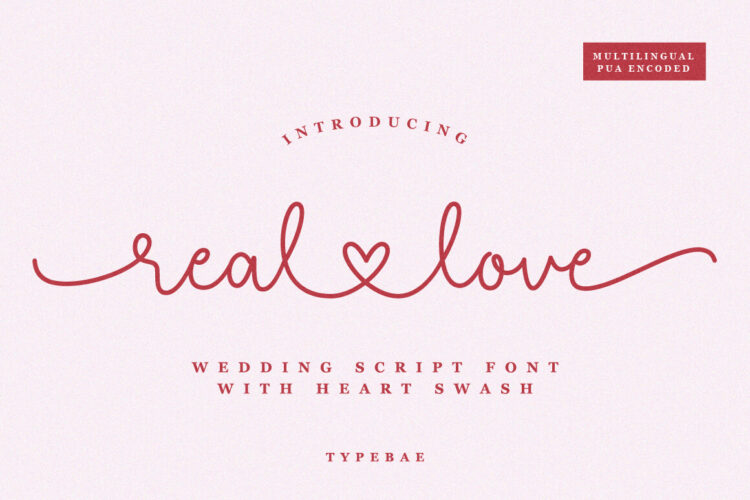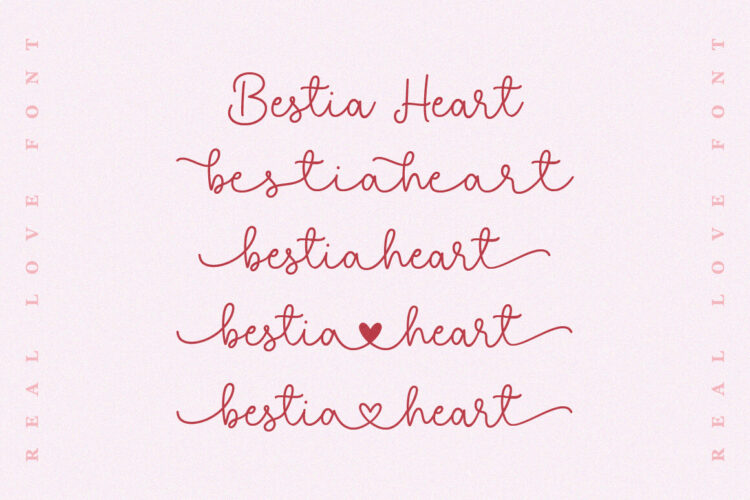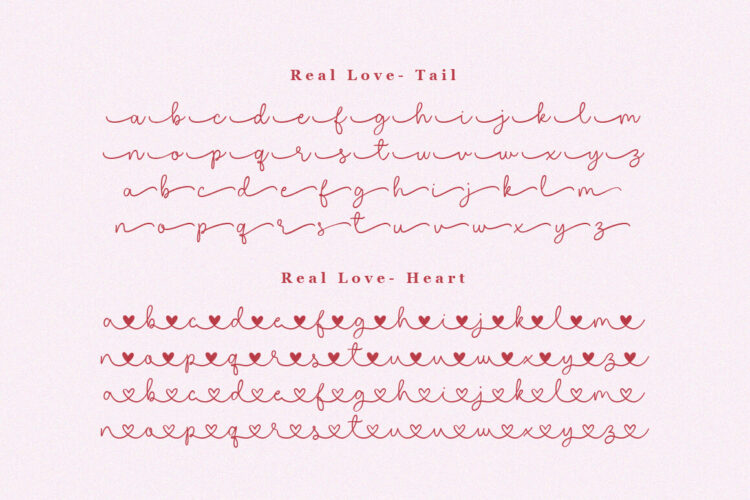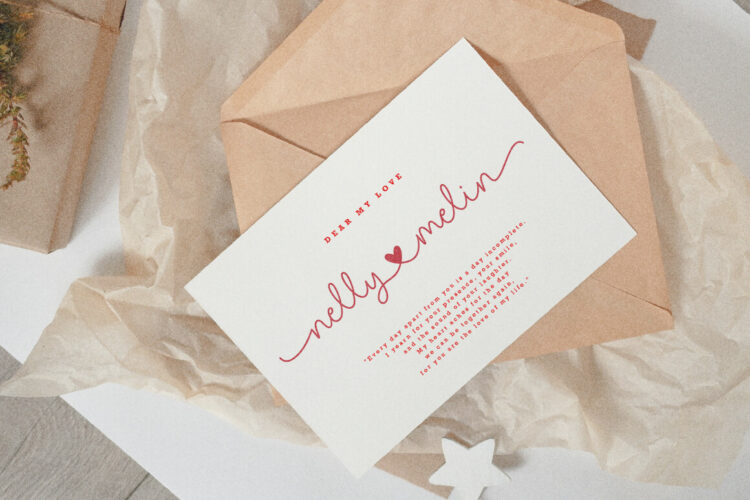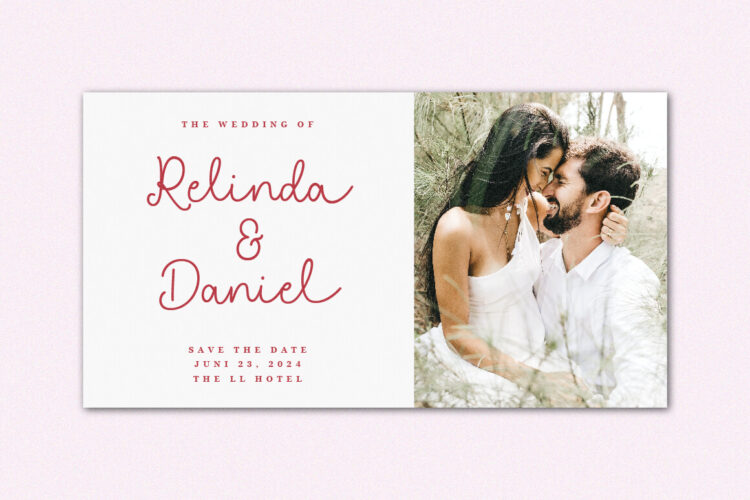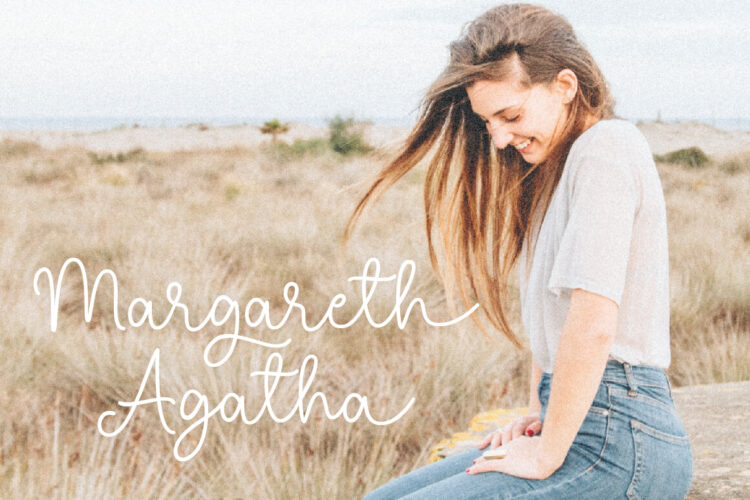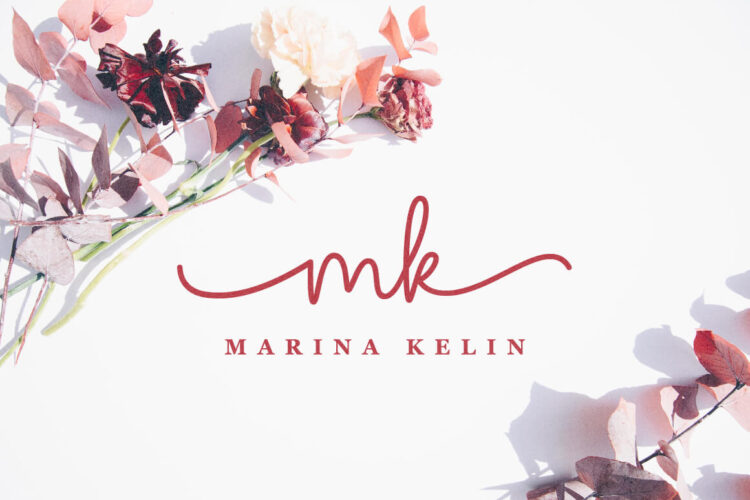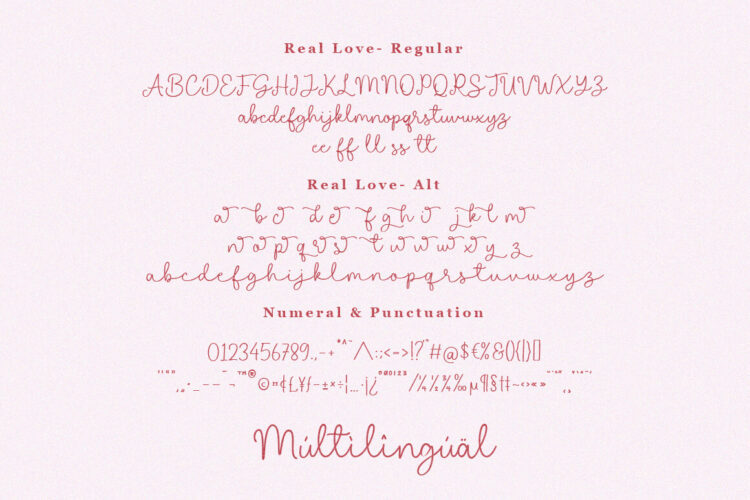
Wedding Script Font
Real Love-Regular
Real Love-Heart
Real Love-Alt
Real Love-Tail
Real Love Font is a wedding script handwriting font that exudes romance. It has captivating swashes at the beginning and end of each stroke, as well as charming letter alternates. The distinctive feature of this font is its heart-shaped connecting swashes, which provide a romantic and enchanting touch.
Feature: Ligature, Multilingual and PUA encoded.